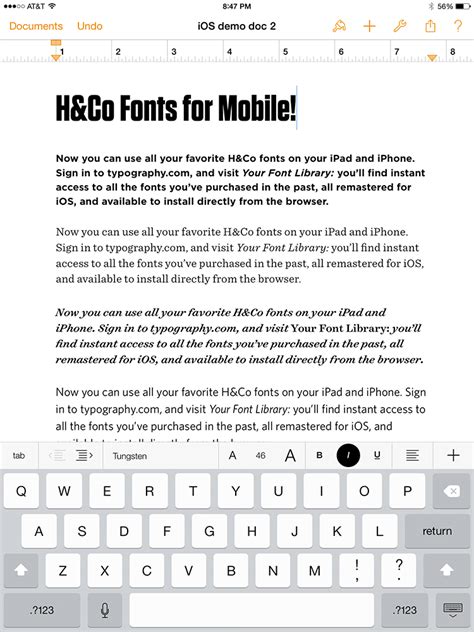
IOS Fonts: Mastering Typography On Your IPhone
iOS Fonts: Mastering Typography on Your iPhone
Hey guys! Ever wondered about the ios font iphone experience? Let’s dive deep into the world of typography on your iPhone. We’ll uncover how you can customize your font settings, use different font styles, and even install your own fonts to make your iPhone truly yours. Whether you’re a seasoned designer, a casual user, or just someone who loves a good-looking screen, this guide has something for you. Get ready to transform your iPhone’s appearance with some font-tastic tweaks!
Understanding Default iOS Fonts
Alright, first things first, let’s talk about the built-in fonts. iOS, in its sleek and user-friendly design, comes with a selection of default fonts that are designed to look great and be easy to read. These are the fonts you see everywhere on your iPhone – from the home screen to your apps, messages, and settings. The primary font used across the iOS interface is called San Francisco , which is a highly readable, modern font created by Apple. It’s designed to look crisp and clean on the Retina display. Other commonly used fonts include Helvetica Neue , which might appear in older apps or system settings, and other variations of San Francisco, like San Francisco Rounded, used in specific interface elements. Understanding these default fonts helps you appreciate the baseline appearance of your iPhone and informs your decisions when customizing. These fonts are optimized for readability, ensuring that text appears clear and sharp, no matter the size or the content. When you first get your iPhone, you are presented with a streamlined look that is already optimized for a great user experience. But what if you want more? What if you want to change things up? Well, let’s get into the specifics of how you can change things up and play around with the text that appears on your iPhone!
Let’s also give a shout-out to how dynamic these fonts are. iOS has a system that adjusts text size automatically to make sure everything fits and is readable across various screen sizes. This is a crucial element for accessibility, as well as general user experience. This system is something that is always running in the background and is constantly working to give you the best user experience. Changing fonts on your iPhone is about more than just aesthetics; it can also greatly improve your device’s usability and personalize your interaction with it. Think about it: a font that’s easier to read can be a huge help if you’re experiencing some level of visual impairment. The font choices can enhance your productivity by making your content more appealing, especially if you deal with lots of text. Choosing fonts on your iPhone is a gateway to tailoring your device to your preferences, making it an extension of your own personal style. It’s a way of setting your device apart from others. So, now that you’re aware of the default fonts and their importance, we can move forward to the next section and learn about how to customize your fonts and truly make your iPhone feel like it’s yours.
Customizing Text Size and Display Settings
Now, let’s explore how to customize the ios font iphone experience with text size and display settings. These are the fundamental options that let you control how text appears on your screen. You do not need to download or install anything to get started, as they’re readily available in your iPhone’s settings. The first and most straightforward customization option is adjusting text size. To do this, head to Settings > Display & Brightness > Text Size . Here, you’ll find a slider that lets you increase or decrease the text size across your iPhone’s interface. As you adjust the slider, you’ll see a preview of how the text size changes, making it easy to find the perfect setting for your visual comfort. This simple adjustment can significantly improve readability, especially for those with vision impairments or anyone who simply prefers larger text. Beyond text size, iOS also offers display accommodations to enhance readability. You can enable Bold Text in Settings > Display & Brightness . This option makes all text bolder, which makes it easier to distinguish individual letters and words. This is a very valuable feature for enhancing readability. You can also adjust display settings such as Increase Contrast or Reduce Transparency to make the text stand out more against the background. These settings help to create a visual environment that is easier on the eyes, especially in low-light conditions or for those sensitive to screen glare. You can also customize the Display Zoom setting located under Settings > Display & Brightness > Display Zoom . This allows you to zoom in on the entire display, making everything larger and easier to see. Keep in mind that while it enhances readability, it may also reduce the amount of content visible on the screen at once. These settings give you full control over how you see text on your device, allowing you to tailor your iPhone’s display to your preferences and needs. And with these tools at your disposal, you can transform your iPhone into a much more comfortable and personal experience.
These customizations are all about enhancing the user experience, so don’t be shy about experimenting with them! Find the settings that make your iPhone most comfortable and easy to use. Remember, the goal is to make your device fit your needs, so take some time to explore the various options and discover what works best for you. These tools are provided by Apple to ensure that everyone has a great user experience on their iPhones, no matter their situation. They are constantly working to ensure that everyone can use their products. Now that you’ve got a grasp of these basic display customizations, let’s explore something a bit more advanced: using third-party apps to change fonts, and installing custom fonts. This is where you can truly let your creative side shine!
Using Third-Party Apps for Font Customization
Alright, guys, let’s get into the nitty-gritty of the ios font iphone customization. While iOS doesn’t offer native font selection outside of the basic system fonts, you can still play with the typography on your iPhone. The key is to leverage third-party apps that provide various options for text styling and font manipulation. These apps don’t necessarily change the system-wide font of your iPhone, but they let you use different fonts in various applications that support them, such as note-taking apps, messaging apps, and other creative tools.
One of the popular approaches is to use apps that offer custom keyboards. These keyboards often come with a wide range of font styles. Once installed, you can switch to these keyboards within apps that support text input, and then you can type with your new preferred font. Apps like Fonts – Keyboard or similar alternatives provide a simple and user-friendly way to introduce unique fonts into your daily communications. They usually offer a variety of font styles, from elegant script fonts to quirky and modern options. However, note that while these apps are fantastic for adding some flair to your texts, the font changes only reflect within the apps where the custom keyboard is used. System-wide font changes aren’t typically possible. It’s a trade-off, but it’s a great option for those who want to express themselves creatively.
Then you can also use design and creative apps. Many creative and design apps allow you to work with different fonts. Apps like Canva or Adobe Spark Post give you a great library of fonts to use, that is perfect for creating graphics, social media posts, and other visual content. These apps usually let you choose fonts and incorporate them into your designs. The fonts will only be displayed within the app, but they’re excellent tools for producing content with unique typographic styles. These apps can be super useful if you create visual content for business, social media, or other projects. Now, with these apps in mind, you have two great options for changing fonts on your iPhone. Use custom keyboards to change font styles in messaging apps, and use design apps to create unique visual content. There is no doubt that these tools can enhance your iPhone experience! Now let’s explore another interesting aspect of iOS font customization: installing custom fonts!
Installing Custom Fonts on Your iPhone
Ready to take the ios font iphone experience to the next level? You can, in fact, install custom fonts on your iPhone! It is a bit more involved, but it opens a world of customization possibilities. The process usually involves downloading font files and installing them through specific apps. You can’t just drop a font file into your system like you would on a computer. You need an app that supports custom font installation. One of the most common and reliable methods is to use apps like AnyFont , which is a great font management tool. Once you’ve downloaded a font file, which you can find online (be mindful of licensing!), you can open it in AnyFont and install it. This will make the font available for use in apps that support custom fonts. You can typically use these fonts within apps that have text editing capabilities, such as word processors or design apps. The process often involves selecting the font from the app’s font menu, just like you would with a built-in font. So, to install custom fonts, first, you have to download the font files. These files are typically in .ttf or .otf formats. Make sure you download from a reliable source to avoid any security issues. Then, you’ll need a font management app. AnyFont, as mentioned above, is a popular choice, but make sure to check the App Store for other options. These apps provide a way to install and manage your fonts. After you install the font management app, open it and import the font files. Follow the app’s instructions. Then, open the app you want to use your custom fonts in. Select the text tool. From there, you should be able to select your newly installed font. If you don’t see the fonts right away, you may need to restart the app or your iPhone. And there you go! You have successfully installed custom fonts!
It is important to understand the limitations. While you can install custom fonts, they might not be universally available across all apps. The font will only be accessible within apps that explicitly support custom fonts. System-wide changes aren’t possible. Also, respect the licensing of the fonts you download. Some fonts are free for personal use only, while others require a commercial license. Always review the license terms to make sure you can use the font as needed. So, to wrap this up, installing custom fonts is a great way to personalize your iPhone. It may require a few extra steps, but the payoff can be well worth it. You can explore a huge library of different fonts that can make your text more stylish and unique. By following these steps, you can start your journey into the world of typography and use custom fonts to truly personalize your device.
Tips and Best Practices for Using Fonts
Okay guys, let’s wrap up with some tips and best practices for the ios font iphone experience. First off, be mindful of readability. The most beautiful font is useless if it’s difficult to read. Choose fonts that are clear and legible, especially for extended reading. Avoid overly ornate or complex fonts for body text. Make sure you consider the contrast. Ensure that your font color contrasts well with the background. High contrast is vital for readability, and it’s especially important in low-light conditions. Dark text on a light background, or light text on a dark background, is usually a good bet. Also, consider the font pairing. If you’re using multiple fonts, pair them thoughtfully. Don’t use too many different fonts. A good rule of thumb is to stick to one or two font families. Use a header font to attract attention, and a body font for readability. Be consistent with your font usage throughout your device. Consistency creates a cohesive look and improves the user experience. Use the same font styles across your notes, messages, and social media posts. Do not overuse fonts. Too much font variation can make your device look cluttered and unprofessional. Use fonts strategically to highlight important information and enhance visual appeal. Experiment with different font sizes. Varying font sizes can create visual hierarchy and guide the reader’s eye. Use larger fonts for titles and headers, and smaller fonts for body text. Always test your font choices on different devices and screens. What looks good on your iPhone might look different on another device. By following these tips and best practices, you can create a beautiful, user-friendly, and stylish iPhone experience. Remember, the goal is to make your iPhone’s interface not only aesthetically pleasing but also functional and easy to use. With a bit of care and creativity, you can transform your iPhone into a personalized typographic masterpiece!